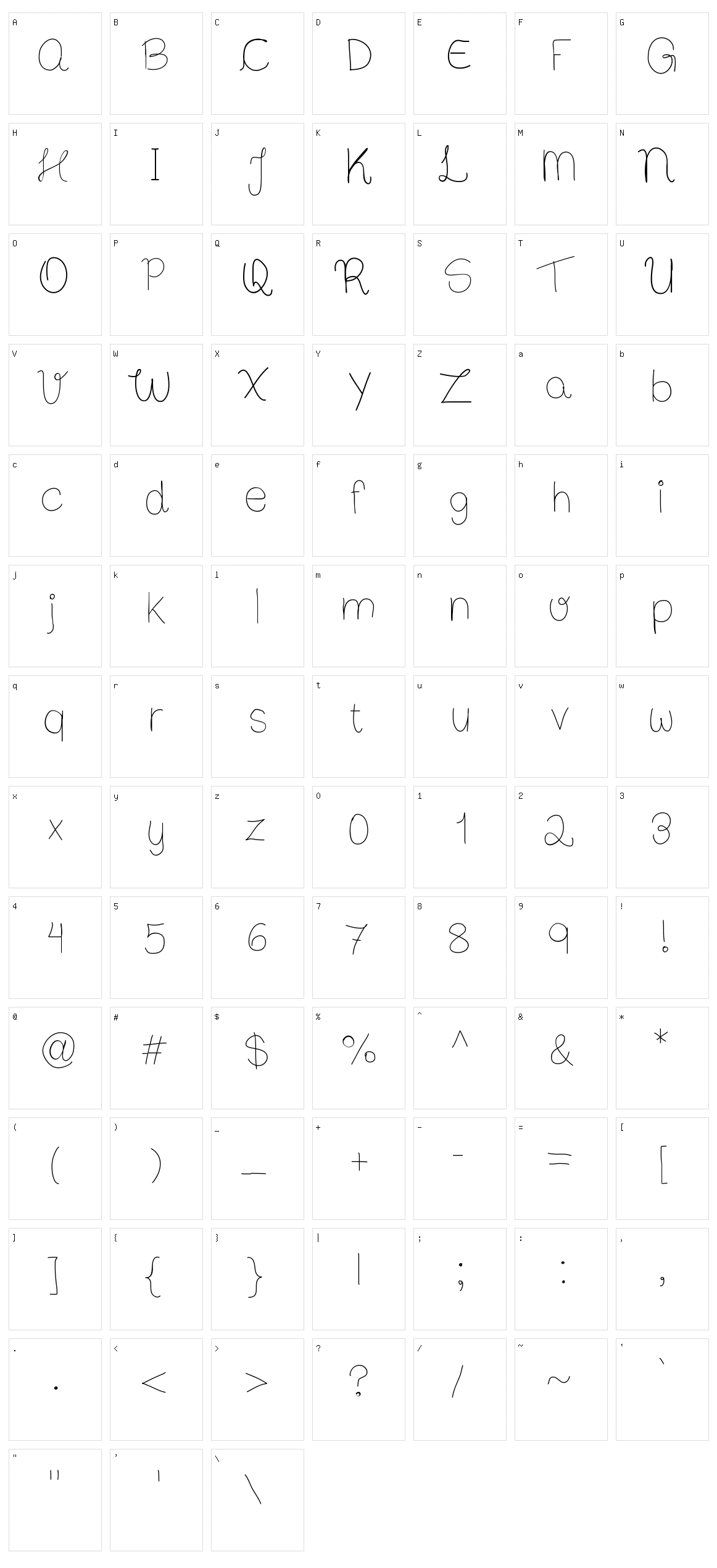
The free font Bibs First Handwrite is carefully designed by Bibi Rocha, showcasing a thoughtful balance of creativity and usability and falls under the Script font style. When you download the ZIP file, it contains only 23.21 KB of font files, making it lightweight and quick to download. Please review the license details below to understand permitted usage and distribution rights. If license information is not available, we recommend using this font for personal projects only or contacting the author directly for commercial usage permissions.